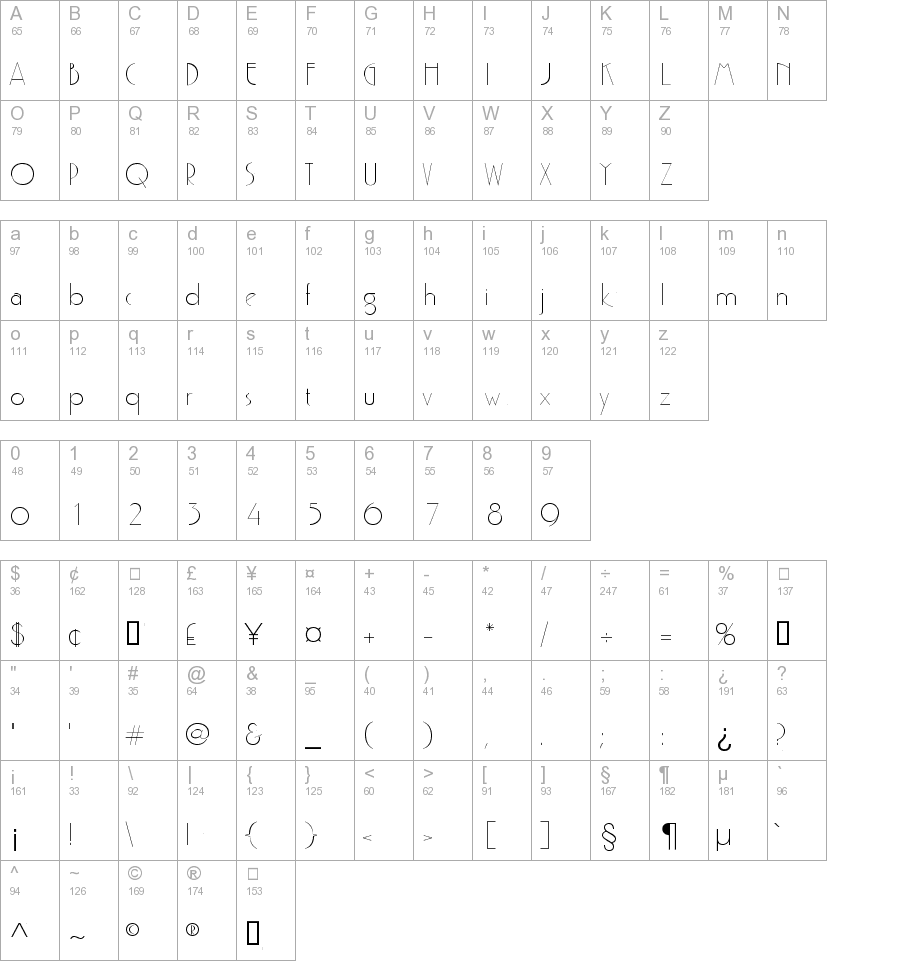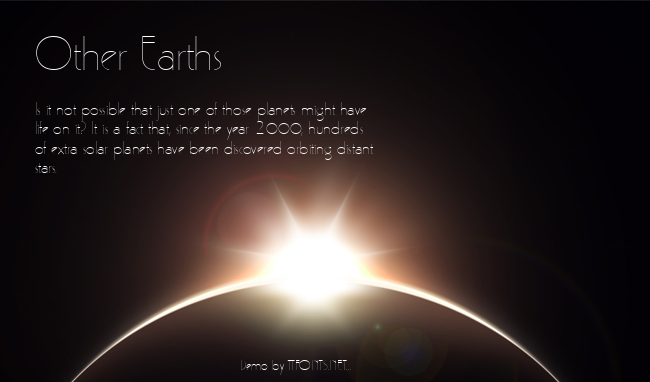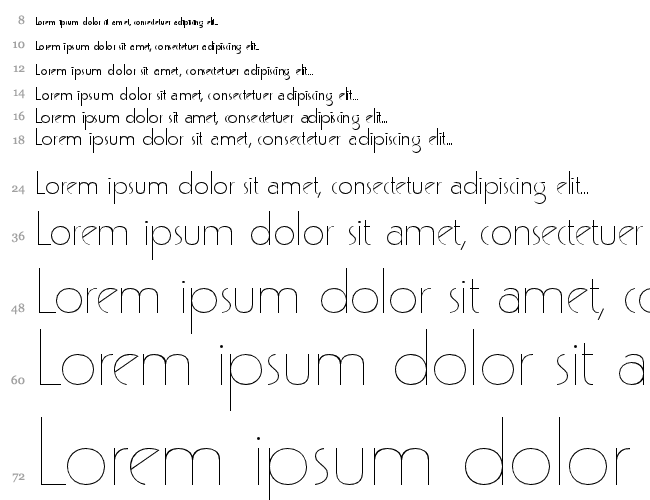
Zelda regular font free. Zelda is an modern and minimal typeface inspired from sans serif font familythis typeface comes with 5 different and styles and many alternatives including personal and commercial licences. Zelda is an minimal display typeface inspired by the classic sans serif font family. New free fonts illusion font regular cirebon alkine regular fantasy regular chubby birdface roadtrack regular. See the font with your own custom text.